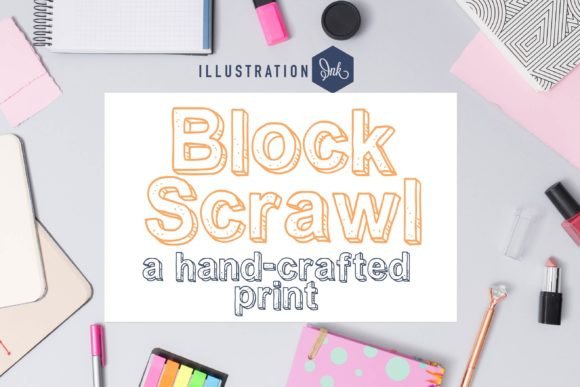
Introducing Block Scrawl Font: A Hand-Crafted, 3D Outlined Font with a Personal Touch
Are you tired of using generic, cookie-cutter fonts that lack personality? Look no further than Block Scrawl Font, a casual, hand-crafted outlined, 3D font that adds a touch of texture and uniqueness to any project. This font is perfect for designers and crafters who want to add a personal touch to their work, whether it’s for invitations, greeting cards, logos, websites, or everyday text.
The Charm of Hand-Crafted Fonts
A hand-crafted font is a font that is designed to feel unique and crafty. Unlike generic fonts that are created using algorithms and computer software, hand-crafted fonts are carefully drawn by hand, one letter at a time. This process gives hand-crafted fonts a distinctive, organic look that is sure to stand out from the crowd.
Hand-crafted fonts are often used for informal projects, such as invitations, greeting cards, and other items that require a personal touch. They are perfect for designers and crafters who want to add a touch of warmth and personality to their work. With Block Scrawl Font, you can create unique and eye-catching designs that are sure to leave a lasting impression.
Features of Block Scrawl Font
Block Scrawl Font is a one-of-a-kind font that features a bit of texture throughout. Its hand-crafted design gives it a unique, organic look that is sure to add a personal touch to any project. Here are some of the key features of Block Scrawl Font:
- Hand-crafted design: Each letter was individually drawn with care, giving the font a unique and organic look.
- 3D outlined font: The font features a 3D outline that adds depth and texture to any project.
- Casual and informal: Block Scrawl Font is perfect for informal projects, such as invitations, greeting cards, and other items.
- Texture throughout: The font features a bit of texture throughout, giving it a distinctive and eye-catching look.
Uses for Block Scrawl Font
Block Scrawl Font is a versatile font that can be used for a variety of projects. Here are some ideas for using Block Scrawl Font:
- Invitations and greeting cards: Add a personal touch to your invitations and greeting cards with Block Scrawl Font.
- Logos and branding: Use Block Scrawl Font to create unique and eye-catching logos and branding materials.
- Websites and blogs: Add a touch of personality to your website or blog with Block Scrawl Font.
- Everyday text: Use Block Scrawl Font for everyday text, such as social media posts, flyers, and brochures.
Why Choose Block Scrawl Font?
There are many fonts to choose from, but Block Scrawl Font stands out from the crowd. Here are some reasons why you should choose Block Scrawl Font:
- Unique and eye-catching: Block Scrawl Font is a one-of-a-kind font that is sure to add a personal touch to any project.
- Hand-crafted design: The font’s hand-crafted design gives it a distinctive and organic look.
- Versatile: Block Scrawl Font can be used for a variety of projects, from invitations and greeting cards to logos and websites.
In conclusion, Block Scrawl Font is a unique and eye-catching font that is perfect for designers and crafters who want to add a personal touch to their work. Its hand-crafted design, 3D outlined font, and casual and informal style make it perfect for a variety of projects. Whether you’re creating invitations, greeting cards, logos, websites, or everyday text, Block Scrawl Font is sure to stand out from the crowd.